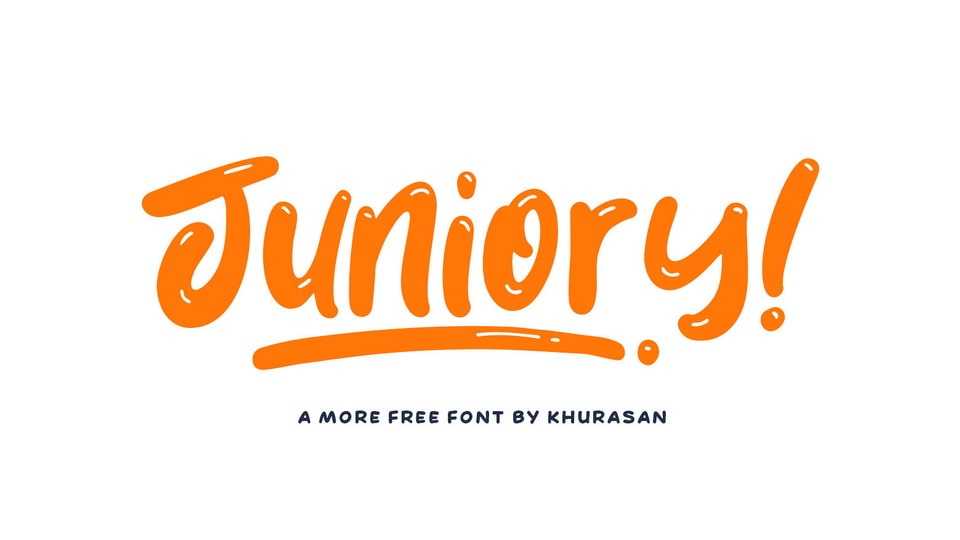
Download Juniory font, a handwritten cartoon typeface filled with a cheerful, natural vibe. Add a playful and quirky touch to your progects with Juniory font.